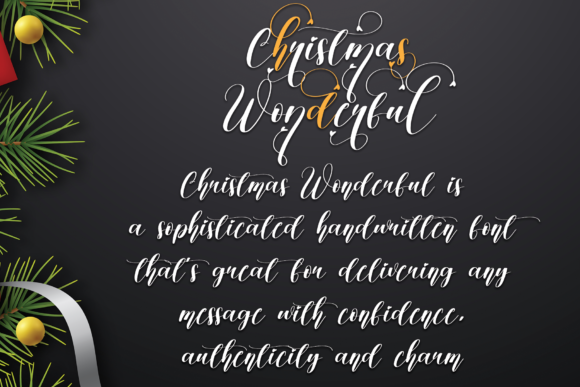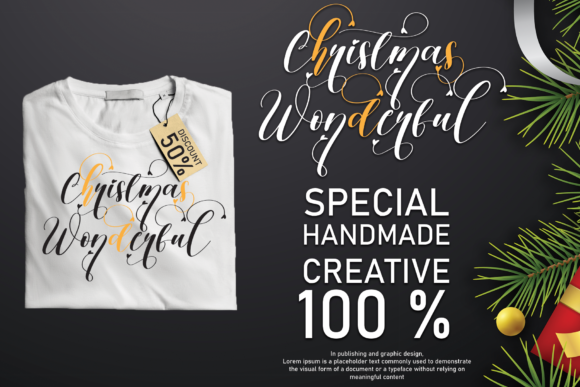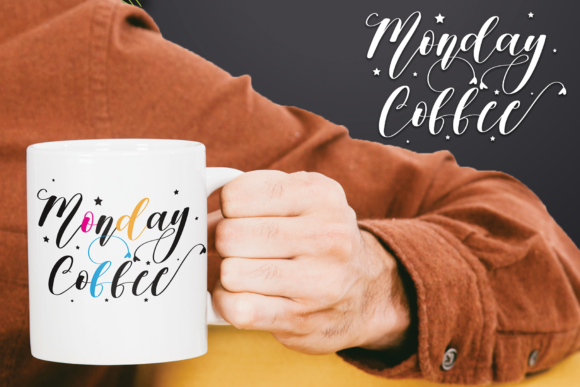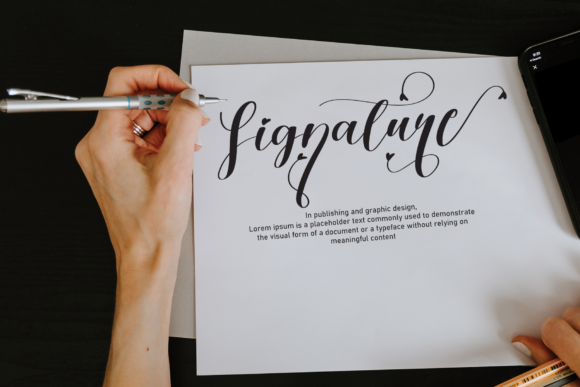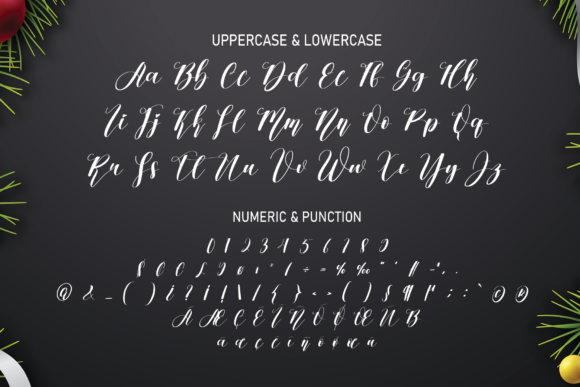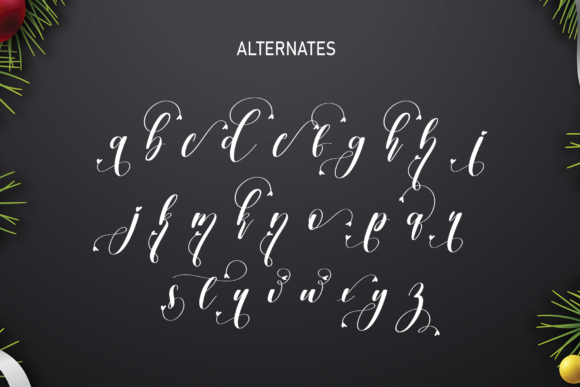
Introducing Christmas Wonderful Font: A Delicate and Elegant Handwritten Masterpiece
Are you looking for a font that exudes elegance and sophistication for your Christmas designs? Look no further than the Christmas Wonderful Font! This delicate and elegant handwritten font is sure to capture the hearts of designers and crafters alike with its distinct and well-balanced letters. In this article, we’ll dive into the features and benefits of Christmas Wonderful Font, and explore how you can use it to create spectacular designs that will leave a lasting impression.
The Characteristics of Christmas Wonderful Font
Christmas Wonderful Font is a beautifully crafted handwritten font that boasts a unique and stylish aesthetic. Its distinct letters are carefully designed to provide a perfect balance of elegance and playfulness, making it an ideal choice for a wide range of design projects. Whether you’re creating Christmas cards, holiday-themed crafts, or festive social media graphics, this font is sure to add a touch of magic to your designs.
What Makes Christmas Wonderful Font So Special?
So, what sets Christmas Wonderful Font apart from other fonts? Here are just a few of its standout features:
- Delicate and elegant design: Christmas Wonderful Font features a beautiful, handwritten design that’s both delicate and elegant. Its intricate details and flowing lines make it perfect for creating sophisticated and eye-catching designs.
- Distinct and well-balanced letters: Each letter in the Christmas Wonderful Font is carefully crafted to provide a perfect balance of style and legibility. This makes it easy to read and understand, even at small sizes.
- Incredibly versatile: Whether you’re creating Christmas cards, holiday-themed crafts, or festive social media graphics, Christmas Wonderful Font is the perfect choice. Its versatility makes it suitable for a wide range of design projects, from formal to informal.
How to Use Christmas Wonderful Font in Your Designs
Now that we’ve explored the features and benefits of Christmas Wonderful Font, let’s take a look at how you can use it in your designs. Here are a few ideas to get you started:
- Christmas cards and invitations: Create beautiful and elegant Christmas cards and invitations using Christmas Wonderful Font. Its delicate design and flowing lines make it perfect for conveying holiday cheer.
- Holiday-themed crafts: Add a touch of elegance to your holiday-themed crafts, such as scrapbooking pages, gift tags, and decorations, with Christmas Wonderful Font.
- Festive social media graphics: Use Christmas Wonderful Font to create eye-catching and festive social media graphics, such as holiday-themed Facebook posts and Instagram stories.
Tips and Tricks for Working with Christmas Wonderful Font
Here are a few tips and tricks to help you get the most out of Christmas Wonderful Font:
- Experiment with different colors and textures: Don’t be afraid to experiment with different colors and textures to add depth and interest to your designs.
- Use it in combination with other fonts: Christmas Wonderful Font pairs well with other fonts, so don’t be afraid to use it in combination with other styles to create a unique and eye-catching design.
- Pay attention to font size and spacing: Make sure to adjust the font size and spacing to ensure that your text is easy to read and understand.
In conclusion, Christmas Wonderful Font is a delicate and elegant handwritten font that’s perfect for designers and crafters looking to add a touch of sophistication to their Christmas designs. Its distinct and well-balanced letters make it a masterpiece, and its incredibly versatile style makes it suitable for a wide range of design projects. Whether you’re creating Christmas cards, holiday-themed crafts, or festive social media graphics, Christmas Wonderful Font is sure to help you create spectacular designs that will leave a lasting impression.